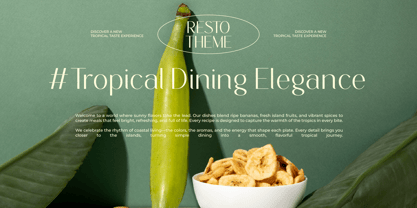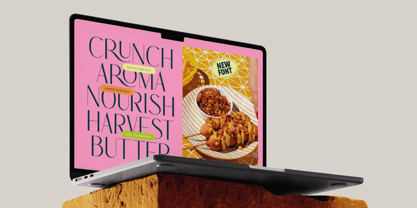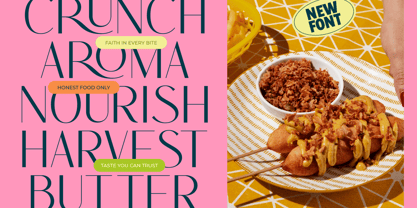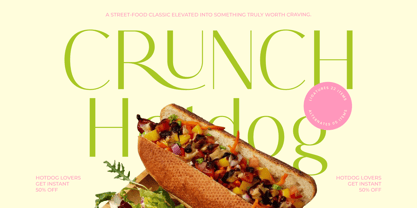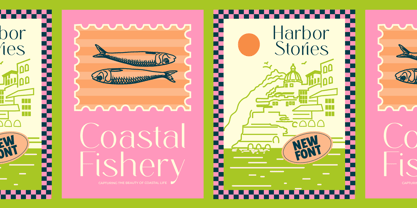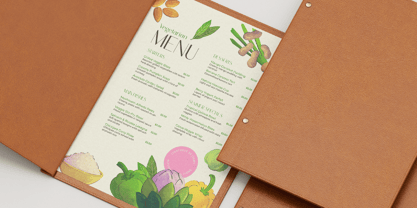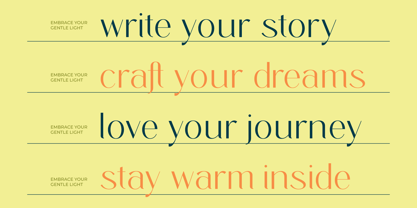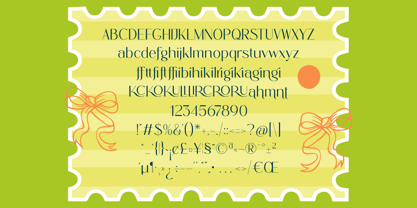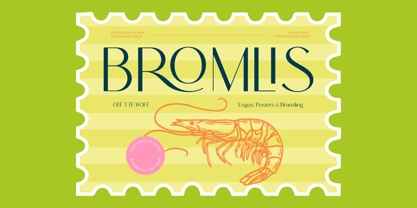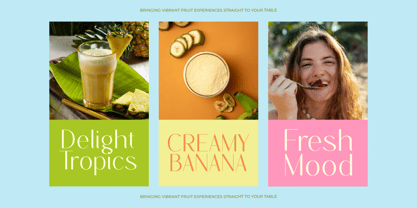
Bromlis
von Amorfa Type
Die Schriftfamilie Bromlis wurde von Shiddiq Roihan entworfen und von Amorfa Type veröffentlicht. Bromlis enthält 2 Stile und Familienpaketoptionen. Mehr über diese Familie
Elegant, Modern & Display-Ready – Built for standout design moments, Bromlis delivers clarity and style in logos, titles, packaging, and visual identity work. Refined Character Details – Includes 22 ligatures and 5 alternates to help shape distinctive and expressive compositions. Multilingual Support – Equipped with an extended character set for international design usage. Optimized for Print & Digital – Crafted with clean vector outlines for crisp, high-resolution rendering on every platform.